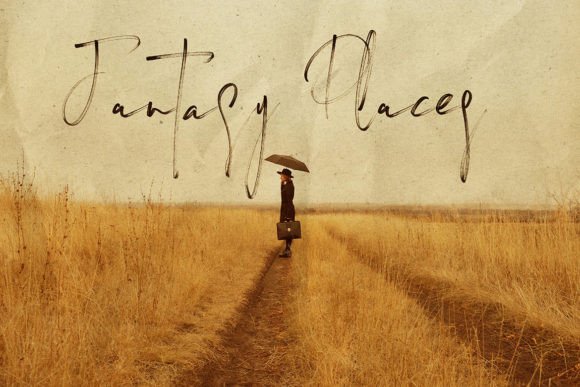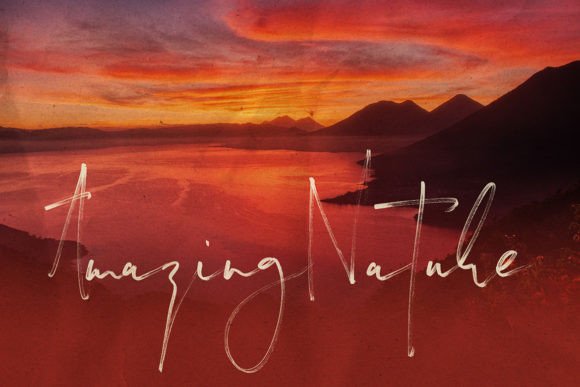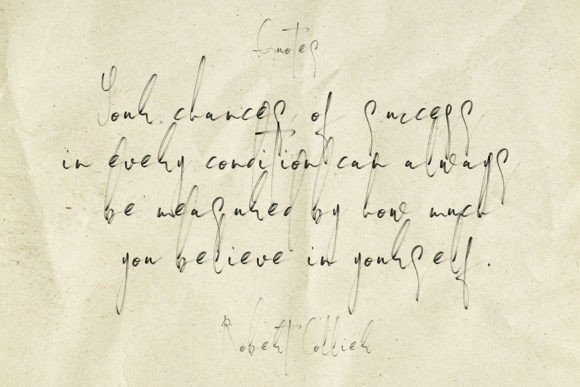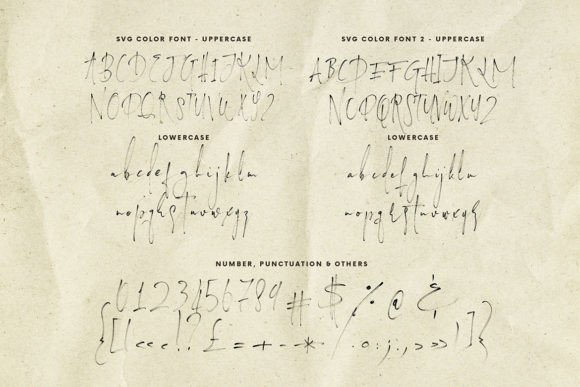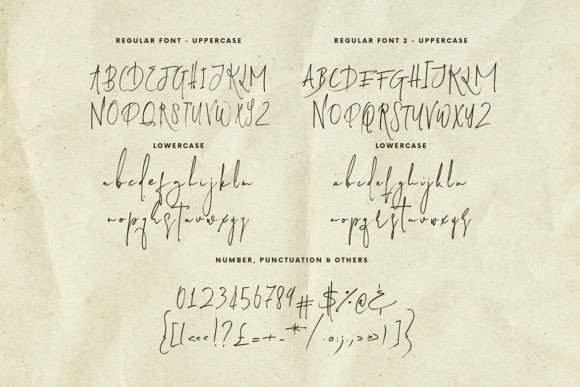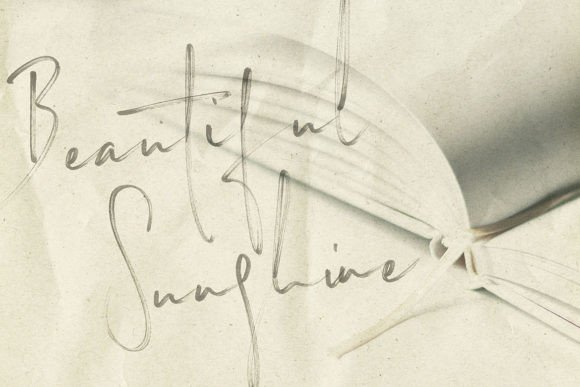
Introducing Brooklyn Font: The Epitome of Modern Brush Script
In the realm of typography, few fonts manage to capture the essence of modern style and edginess as effectively as Brooklyn Font. This contemporary brush script font is designed to make a statement, with bold, confident strokes that exude energy and sophistication. Whether you’re a designer looking for the perfect typeface for your next branding project, a crafty individual seeking a unique font for your DIY endeavors, or simply a typography enthusiast, Brooklyn Font is sure to captivate and inspire.
The Characteristics of Brooklyn Font
Brooklyn Font is distinguished by its cursive letterforms, which flow with a dynamic rhythm that is both fluid and expressive. Each character is crafted with meticulous attention to detail, featuring unique flourishes and subtle variations that lend the font its distinctive personality. The bold strokes of Brooklyn Font are not only visually striking but also convey a sense of confidence and modernity, making it an ideal choice for designs that require a fresh and avant-garde look.
Ideal Applications for Brooklyn Font
The versatility of Brooklyn Font allows it to be used across a wide range of design applications. Here are some of the areas where this font truly shines:
- Branding: For businesses looking to establish a strong, contemporary identity, Brooklyn Font offers a stylish and memorable solution. Its unique character can help brands stand out in a crowded marketplace.
- Packaging: The bold and eye-catching nature of Brooklyn Font makes it perfect for product packaging, especially for brands in the fashion, beauty, and lifestyle sectors.
- Editorial Design: For magazines, blogs, and digital publications aiming for a modern and edgy aesthetic, Brooklyn Font can add a touch of sophistication and flair to headings and titles.
Why Designers and Crafters Love Brooklyn Font
Brooklyn Font has quickly become a favorite among designers and crafters for several reasons:
- Uniqueness: In a sea of generic fonts, Brooklyn Font stands out with its distinctive style, allowing designers to create work that is truly one-of-a-kind.
- Versatility: Despite its bold appearance, Brooklyn Font is surprisingly versatile, capable of being used in both digital and print projects.
- Legibility: While it boasts a unique and artistic design, Brooklyn Font does not compromise on legibility, making it suitable for use in a variety of contexts.
Tips for Using Brooklyn Font Effectively
To make the most of Brooklyn Font, consider the following tips:
- Pair it with Neutrals: For maximum impact, pair Brooklyn Font with neutral fonts that complement its bold style without competing with it.
- Experiment with Colors: Don’t be afraid to play with different colors to find the perfect match for your design. Brooklyn Font looks stunning in bold, vibrant hues.
- Use it for Headlines: While it’s tempting to use Brooklyn Font throughout your design, it’s often most effective when used for headlines or key phrases, allowing you to draw attention to important information.
Brooklyn Font is more than just a typeface; it’s a statement of style and a reflection of modern creativity. With its bold strokes, unique details, and versatile nature, it has become an indispensable tool for designers and crafters looking to infuse their projects with a contemporary edge. Whether you’re working on a branding campaign, designing packaging, or crafting editorial content, Brooklyn Font offers a stylish and impactful solution that is sure to leave a lasting impression.